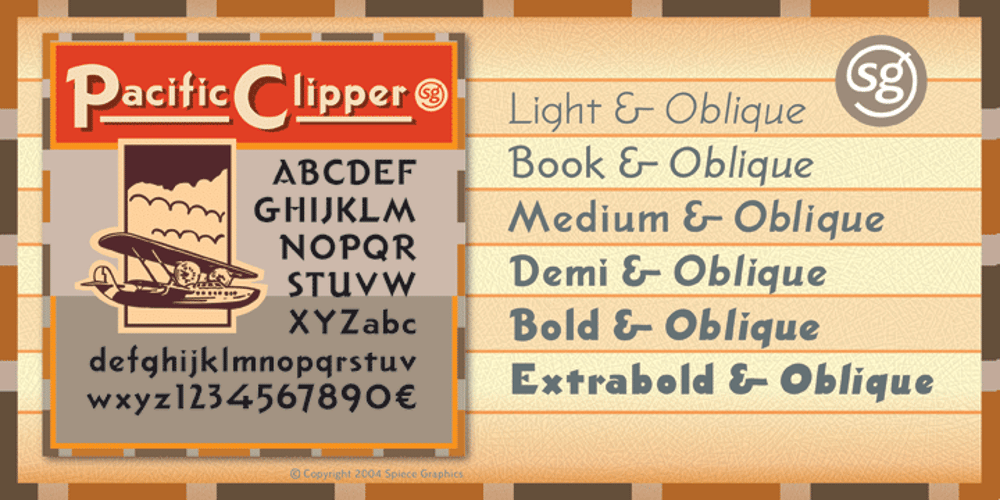
Pacific Clipper SG Font Family was designed by Jim Spiece and published by Spiece Graphics. Pacific Clipper SG contains 12 styles and family package options. Pacific Clipper has its roots in an old 1930s showcard lettering style. An extra bold version of this sign painter’s relic is shown in Carl Holmes’ wonderful book on lettering. It may be described as what happens when Rudolf Koch’s Kabel Heavy meets ATF’s Novel Gothic. Also known as Sam’s Tune, Pacific Clipper’s noteworthy features include wedged crossbars in the capital A, E, F, and H. Overcurving is present in the capital B, D, P, and R while vertical strokes in the lowercase b, d, h, k, l, and t are chopped off obliquely. Figures in Pacific Clipper are also refreshingly different, particularly the number 4. This lettering favorite turned retro typeface has been extended to include a variety of weights. Pacific Clipper is now available in the OpenType format. Some new characters have been added to this OpenType version as Stylistic Alternates and Historical Forms. These advanced features work in current versions of Adobe Creative Suite InDesign, Creative Suite Illustrator, and Quark XPress. Check for OpenType advanced feature support in other applications as it gradually becomes available with upgrades.